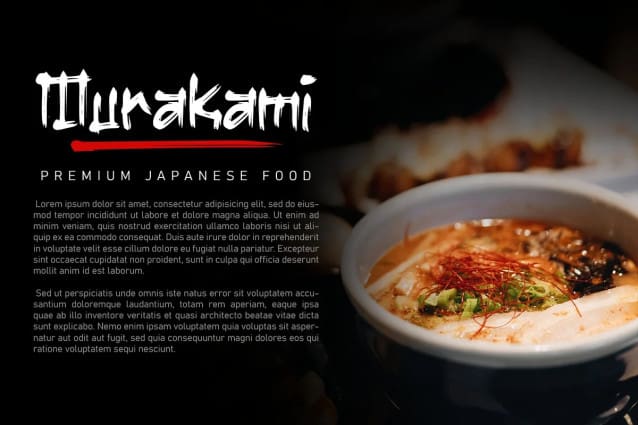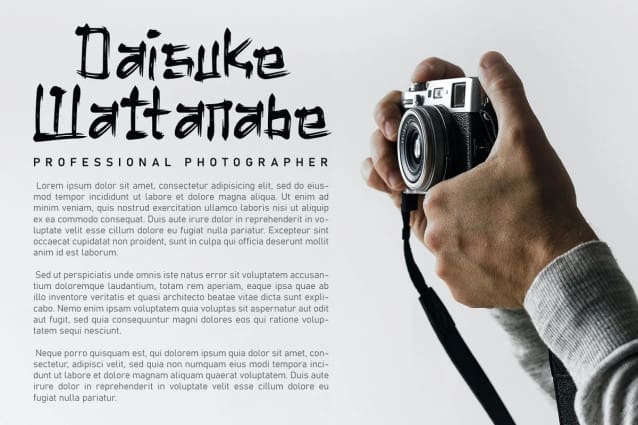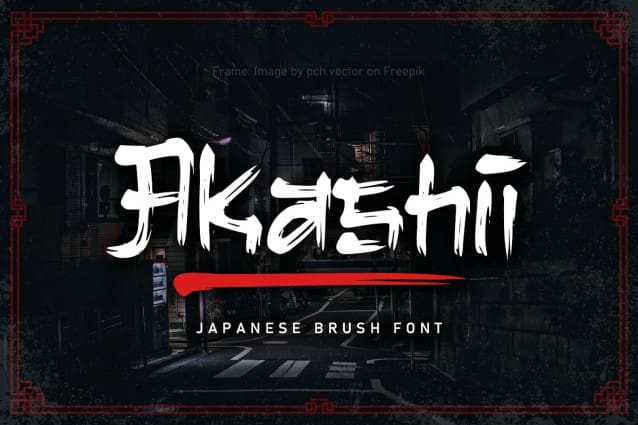
Akashii Brush Font
Akashii Brush Font, a Japanese brush font that embodies the beauty of traditional calligraphy with a contemporary flair. Crafted with precision and inspired by the elegance of brush strokes, Akashii Brush is a visual symphony that captures the spirit of Japan’s rich artistic heritage.
The strokes of Akashii tell a story, conveying both strength and grace. Whether you’re designing invitations, branding materials, or adding a touch of Eastern charm to your artistic creations, Akashii elevates your work with its unique cultural character.
Dive into the world of Akashii and let your designs resonate with the poetic elegance of Japanese calligraphy. This brush font is more than a typeface; it’s a brushstroke of cultural authenticity, inviting you to infuse your projects with the artistry of Japan.